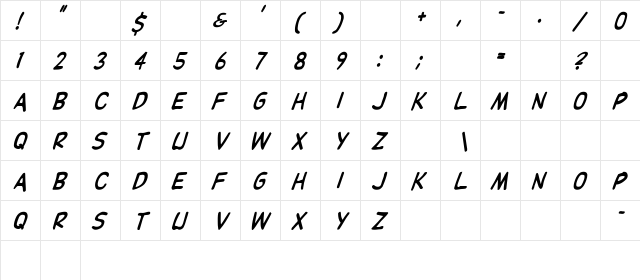
DupuyBALloon-Italic Italic
Design Context for DupuyBALloon-Italic Typeface
DupuyBALloon-Italic takes a measured approach to typography — its balanced proportions and neutral character make it a reliable workhorse for both digital and print work. The dynamic lean of this cut emphasises speed and emphasis in any layout.
Pro Tip: Use DupuyBALloon-Italic for emphasis, pull quotes, and subheadings where its slanted energy can add rhythm to the layout.